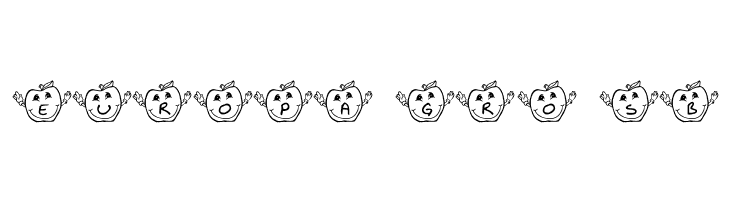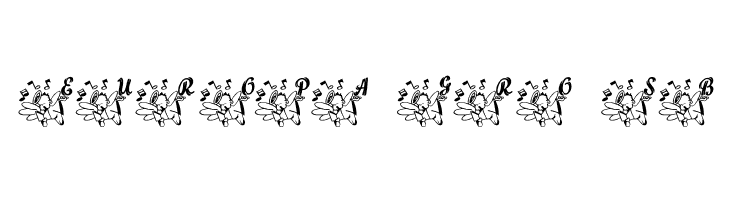
LCR Cupid's Heart Font
A decorative font with characters inside heart shapes topped by cupids.
LCR Hearts Afire Font
A decorative font with characters inside heart shapes and bold brush strokes.
LCR On the Farm Font
A collection of farm-themed icons and silhouettes representing various characters.
LCR Teacher's Pet Font
A playful font with characters inside cartoon apple shapes, ideal for fun and educational projects.
LCR Luv To Paint Font
A whimsical, artistic font with characters enclosed in painter's palettes.
LCR School Daze Font
A playful, school-themed font with characters on chalkboards.
LCR Parrot Talk Font
Whimsical bird and parrot illustration dingbat font.
LCR Rainy Daze Font
A playful, umbrella-themed decorative font with raindrop accents.
LCR Frightful Frames Font
A decorative font with Halloween-themed frames featuring spooky illustrations.
LCR Mountain Climber Font
A decorative font with a mountain climber motif integrated into each character.
LCR Autumn Harvest Dings Font
Hand-drawn autumn and harvest-themed dingbat illustrations.
LCR Joyful Noise Font
A decorative font with floral and musical motifs integrated into each character.
LCR FunFrames Font
A decorative frame and border dingbat font with various outlined shapes.
LCR Kitchen Dings Font
A decorative font featuring kitchen-themed illustrations.
LCR Cat's Meow Font
Cartoon cat illustration font with each character as a different cat drawing.
LCR FrankenFright Font
A playful, spooky font with characters inside a cartoon Frankenstein head.
LCR Lesley's Crafts Font
A decorative font inspired by crafting tools and DIY aesthetics.
LCR Cutesy Cupid Font
LCR America's Heart LSF Font
A bold, decorative font with stars and stripes patterns, ideal for playful designs.
LCR Prestigious Teddies Font
A charming and playful font featuring unique teddy bear illustrations.
LCR Meeses Font